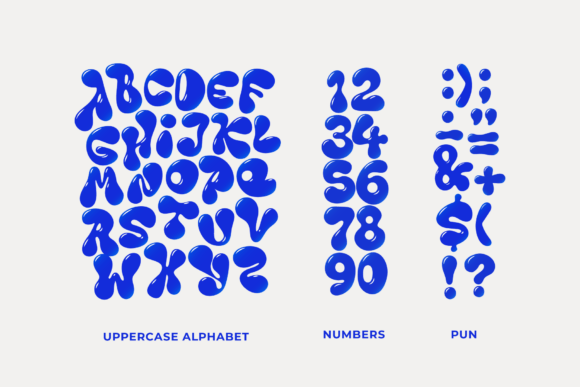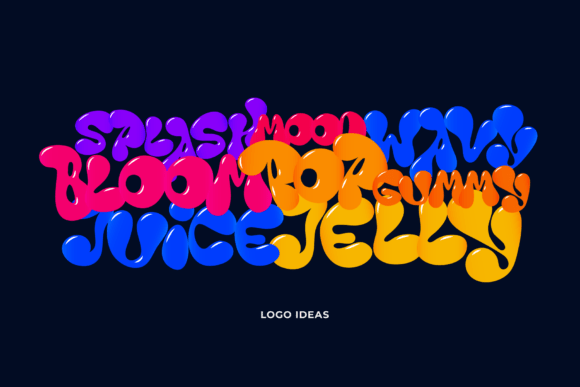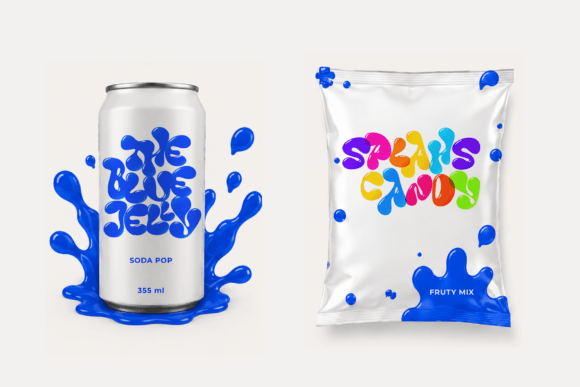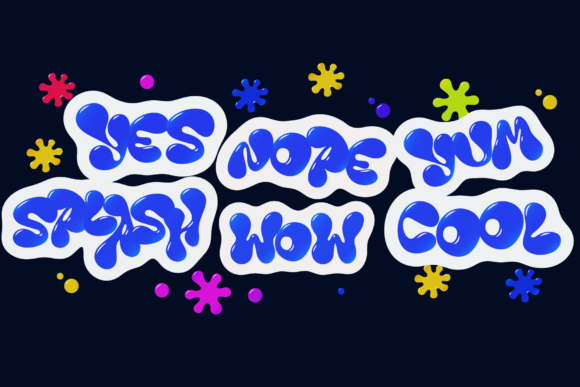
Make a Splash with The Fluid Font: The Ultimate Display Typeface for Bold Branding
In the world of typography, a font can make or break a brand’s identity. For designers and crafters looking to make a statement, The Fluid Font is a game-changer. This ultra-dynamic display typeface is designed to capture a “molten-and-mercurial” soul, making it perfect for brands that want to stand out from the crowd.
What is The Fluid Font?
The Fluid Font is a unique display typeface that features thick, amorphous letterforms with an organic structural weight. Its stylized splash points and glossy light reflections give it a distinctive look that’s both retro and modern. This font is all about movement and fluidity, making it perfect for brands that want to convey a sense of energy and dynamism.
The Inspiration Behind The Fluid Font
The Fluid Font is inspired by the intersection of retro surf culture and modern high-gloss digital branding. Its design is characterized by a heavy footprint and hyper-fluid movement, making it perfect for brands that want to make a bold statement. Whether you’re a beverage brand looking to stand out on store shelves or a streetwear brand wanting to make a statement on social media, The Fluid Font is the perfect choice.
Use Cases for The Fluid Font
The Fluid Font is incredibly versatile and can be used in a variety of contexts. Here are some of the most popular use cases:
- Independent Beverage Branding: The Fluid Font is perfect for beverage brands that want to stand out on store shelves. Its bold, eye-catching design makes it perfect for labeling and packaging.
- Creative Streetwear Graphics: The Fluid Font is a great choice for streetwear brands that want to make a statement on social media or on apparel. Its bold, dynamic design is sure to turn heads.
- Pool Party Promotional Posters: The Fluid Font is perfect for creating eye-catching promotional posters for pool parties or other events. Its fun, playful design is sure to grab attention.
- High-Impact Social Media Headlines: The Fluid Font is great for creating high-impact social media headlines that are sure to grab attention. Its bold, dynamic design makes it perfect for “drip-and-distortion” style headlines.
Key Features of The Fluid Font
The Fluid Font has several key features that make it stand out from other display typefaces:
- Organic Structural Weight: The Fluid Font features an organic structural weight that gives it a unique, hand-crafted feel.
- Stylized Splash Points: The font’s stylized splash points add a touch of whimsy and playfulness to its design.
- Glossy Light Reflections: The font’s glossy light reflections give it a high-gloss, digital feel that’s perfect for modern branding.
- Hyper-Fluid Movement: The Fluid Font’s hyper-fluid movement makes it perfect for creating dynamic, eye-catching headlines and graphics.
Why Choose The Fluid Font?
There are many reasons why designers and crafters should choose The Fluid Font for their branding projects:
- Unique Design: The Fluid Font has a unique design that’s sure to stand out in a crowded marketplace.
- Versatility: The font is incredibly versatile and can be used in a variety of contexts, from beverage branding to streetwear graphics.
- Ease of Use: The Fluid Font is easy to use and can be easily integrated into a variety of design projects.
- High-Impact: The font’s bold, dynamic design makes it perfect for creating high-impact headlines and graphics.
The Fluid Font is a game-changing display typeface that’s perfect for designers and crafters looking to make a statement. Its unique design, versatility, and ease of use make it a great choice for a variety of branding projects. Whether you’re looking to create bold, eye-catching headlines or dynamic, high-impact graphics, The Fluid Font is the perfect choice.